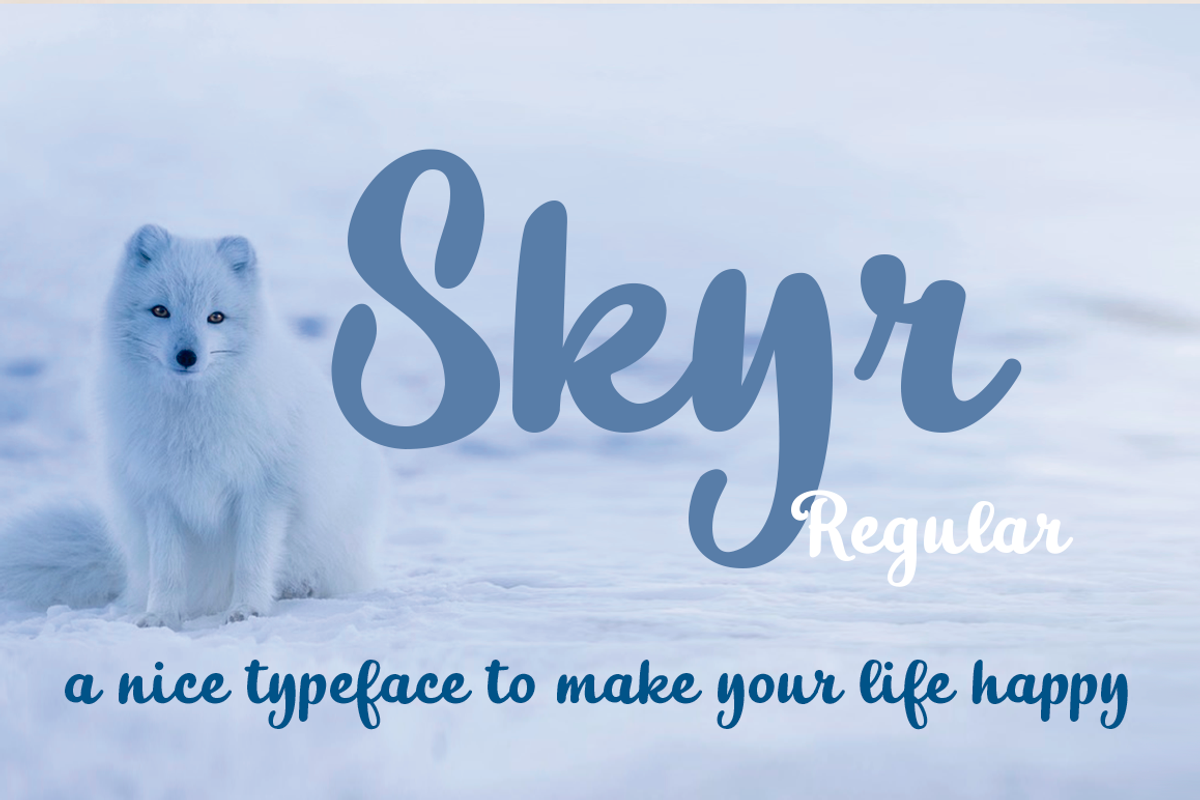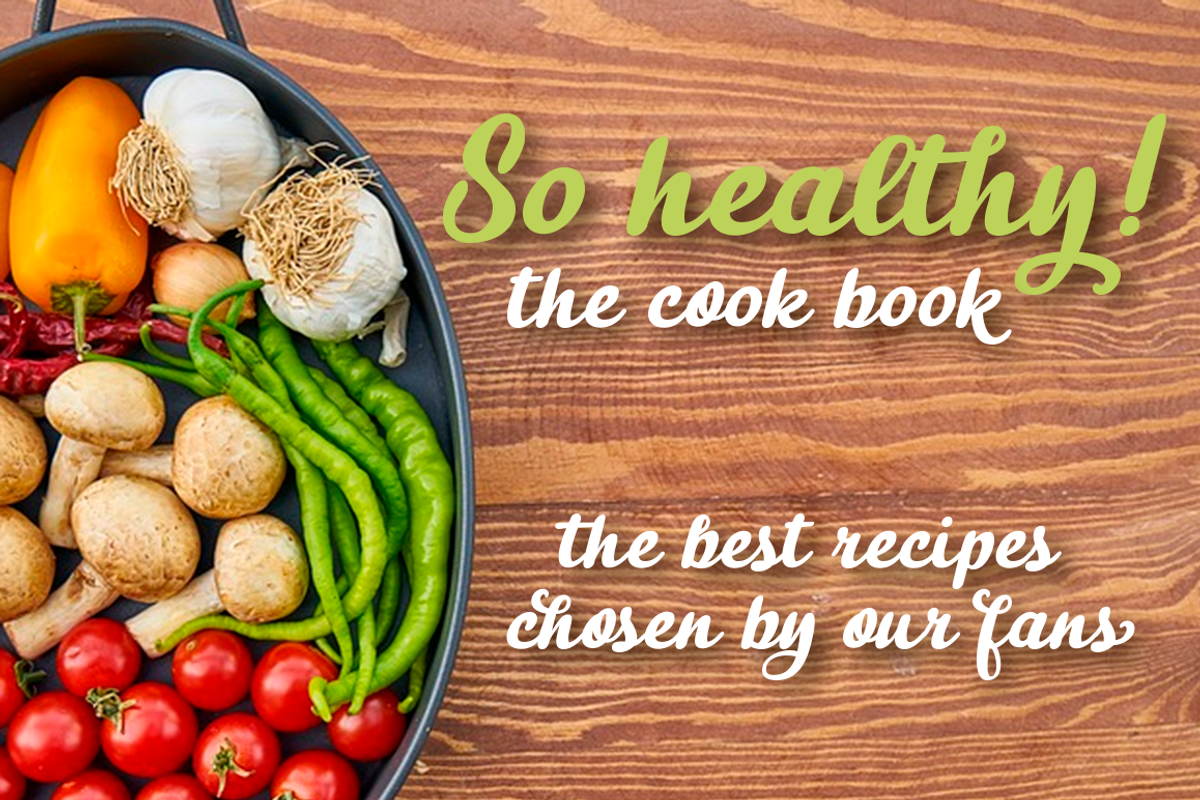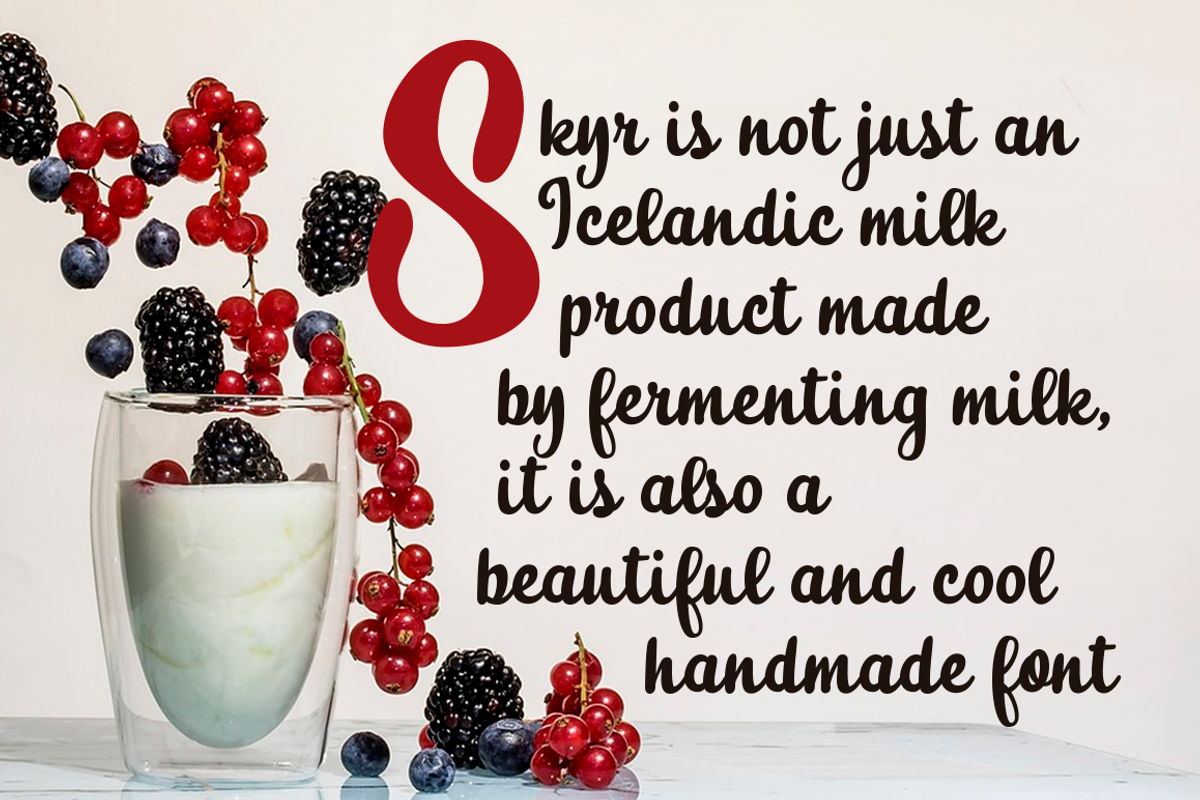
Skyr Basic
Design: Carine de Wandeleer
Skyr is a modern, fun and casual script with a unique and modern look. The Skyr family package comes in two styles: regular and italic. Skyr looks good in children's books, fashion, magazines, restaurant menus, book covers, wedding invitations, greeting cards, logos, business cards and is perfect for use in designs based on ink or watercolor, and more!